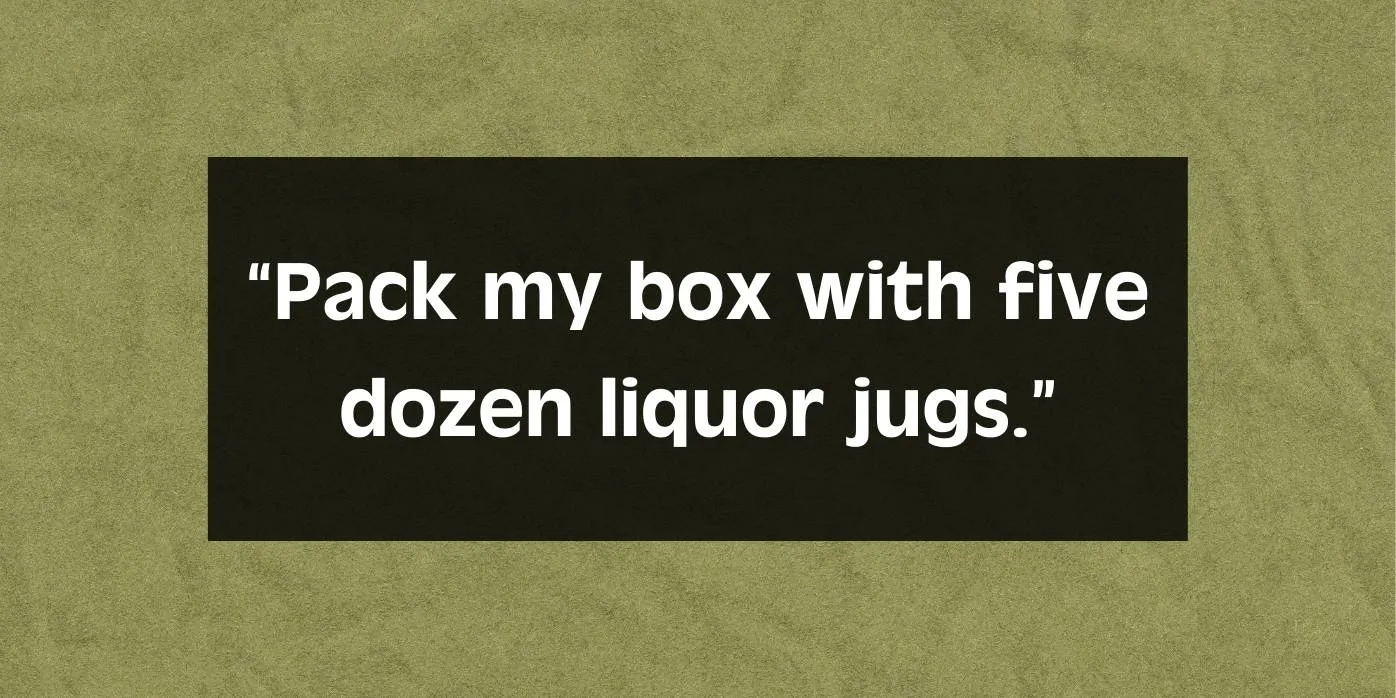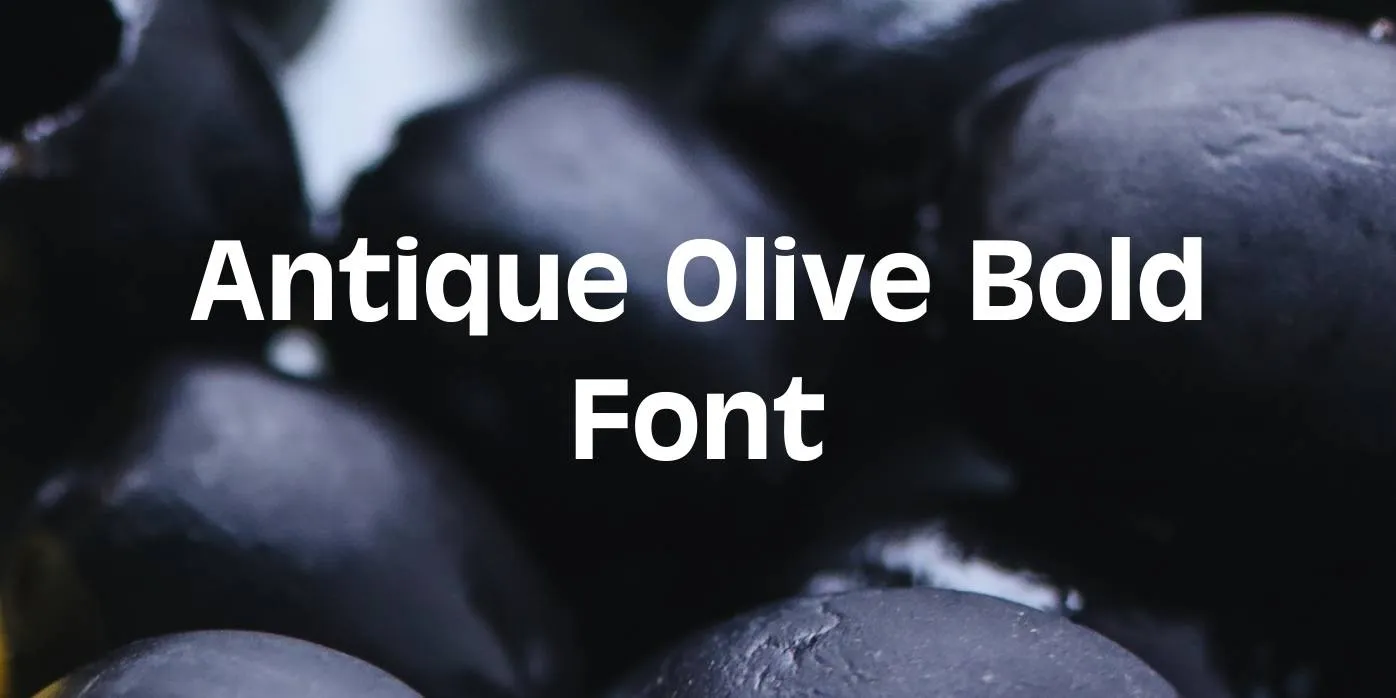
Antique Olive Bold Font
Here, we are going to present a new stylish typeface named Antique Olive Bold Font.  It belongs to the Sans Serif typeface. Roger Excoffon is the creator of this font family. This stunning font family is a very stylish typeface. It has a unique design that makes it stand out from other sans serif typefaces.
Its alternative adget sans font is perfect for many designs. The family includes four different styles: regular, bold, italic, and bold italic. Each style has its own unique features that make it suitable for different purposes. Its copy and paste function is suitable for text designs.
The regular style of Antique Olive Bold Typeface is the most versatile. It can be used for both body copy and headlines. The bold style is perfect for headlines and short blocks of text. The italic style is ideal for emphasis and adding personality to your text.